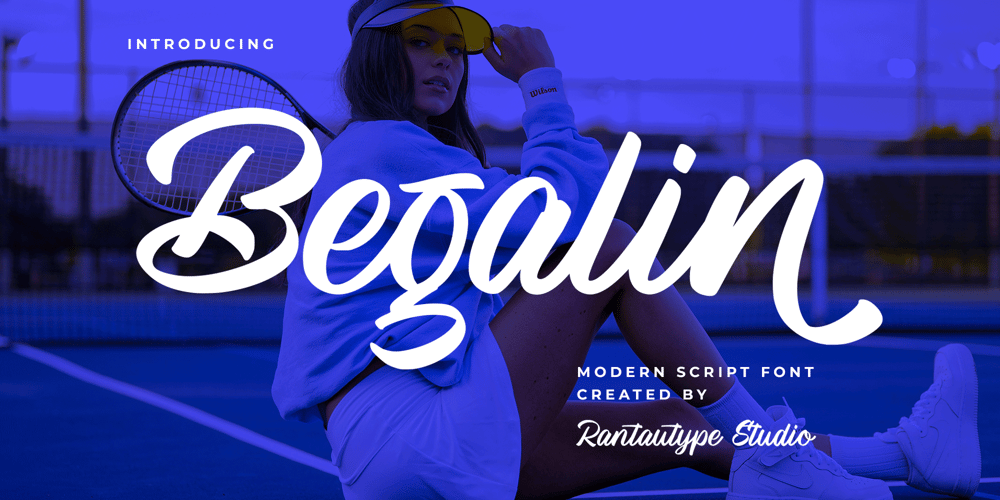
Begalin Font Family was designed by Yudi Pratama Chandra and published by RantauType. Begalin contains 1 styles and family package options. Begalin is modern script font create with personal hand-lettering touch. Begalin is a perfect choice for any creative endeavor, lifestyle design such as logos, title, watermark on photography, cover, branding, display and magazine, wedding event, corporate brand, quotes, album cover, business card, business project, company branding and more project with handwritten taste.What you have: Standart Glyphs Numberial and Functional Ligature and alternate Works on PC & Mac Simple installations Accessible in Adobe Illustrator, Adobe Photoshop, Adobe InDesign, even work on Microsoft Word. Fonts include multilingual support for: Afrikaans, Albanian, Basque, Bemba, Bena, Breton, Catalan, Chiga, Cornish, Danish, Dutch, English, Estonian, Filipino, Finnish, French, Galician, German, Icelandic, Indonesian, Irish, Italian, Kinyarwanda, Luxembourgish, North, Norwegian, Portuguese, Romansh, Rombo, Rundi, Scottish, Gaelic, Sena, Shambala, Shona, Soga, Somali, Spanish, Swahili, Swedish, Swiss, German.Thank you for your purchase!Hope you enjoy with our font!